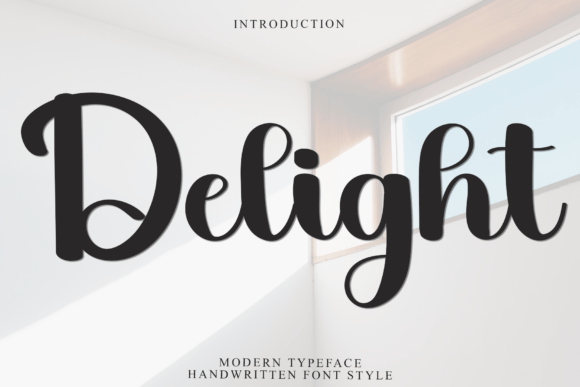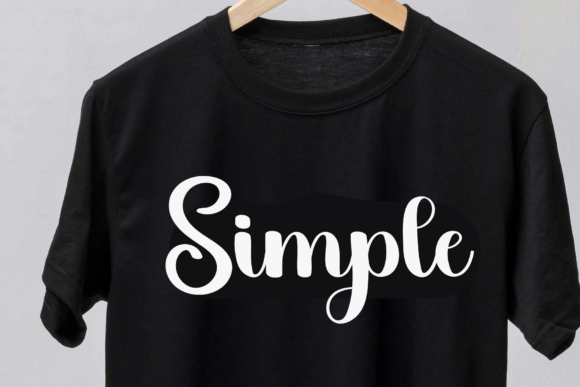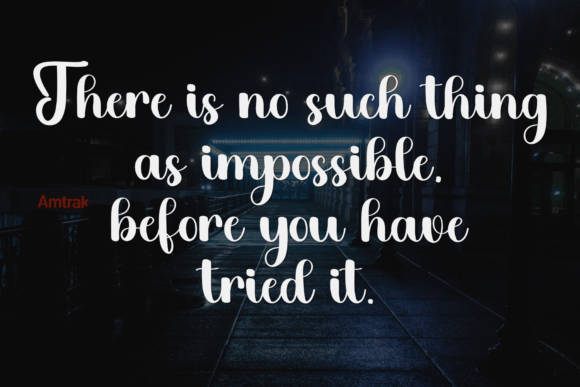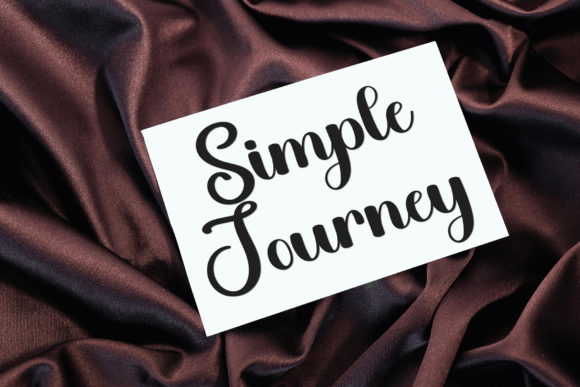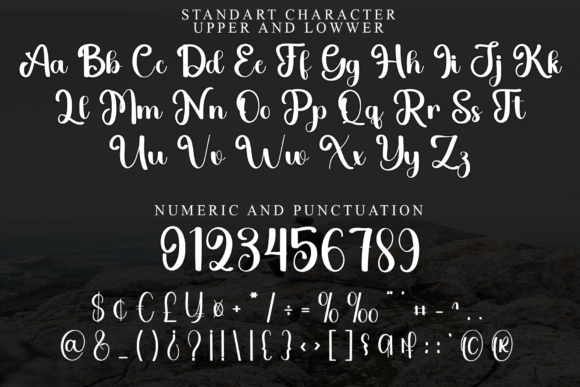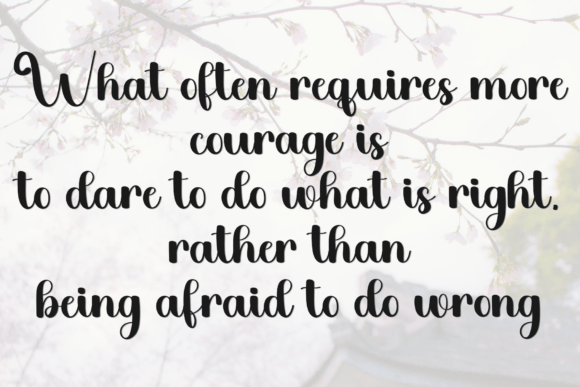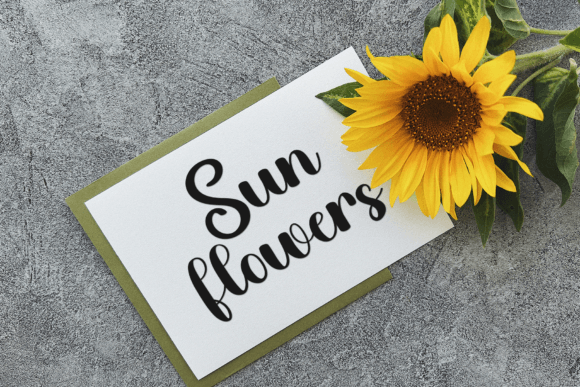
Have you ever sat at your desk, staring blankly at a blank page, searching for the perfect font to bring your design to life? The blank page can be intimidating, but the right font can make all the difference. For me, it’s that moment when the words start flowing, and the design begins to take shape – and that’s exactly what the Delight Font is designed to do.
Delight Font is a stunning, elegant script font that’s perfect for adding a handwritten touch to your designs. Whether you’re creating wedding invitations, thank you cards, or business cards, this font is sure to delight your clients and leave a lasting impression. With its versatility and timeless charm, the Delight Font is a valuable addition to any designer’s toolkit.
Delight Font Key Features
- Font Size: 20,000+ glyphs, ensuring comprehensive language support
- Unique Characteristics: Delight Font features a modern, elegant design with a focus on readability and versatility, making it suitable for a wide range of applications, from body text to display headings.
Delight Font Review
First off, I’d say that Delight Font has a certain ✨ charm to it. The delicate, handwritten feel of the font is perfect for any project that needs a touch of whimsy. The font is great for use in creative industries like advertising, fashion, and entertainment, where a bit of flair can go a long way.
The font also works well for use in social media graphics, where the cursive feel can help to add a personal touch to your posts. Plus, the font is highly customizable, making it easy to adjust the style to fit your needs.
- ⚠️ Delight Font may not be the best choice for use in formal or professional settings, where a more traditional font might be more suitable.
- ⚠️ The font may be difficult to read in certain situations, such as at small font sizes or in low-light conditions.
Overall, I’d say that Delight Font is a solid choice for any project that needs a bit of personality. While it may not be the best choice for every situation, it’s definitely worth considering for projects that need a touch of whimsy and flair.
- Designing wedding invitations and stationery.
- Creating social media graphics and advertisements.
- Designing branding materials and logos.
Alternatives to Delight Font
Great Vibes is a modern script font perfect for creating a friendly and approachable atmosphere. It’s ideal for use in logos, branding, and advertising materials where a casual and relaxed tone is desired.
Great Vibes is similar to Delight Font in its cursive style, but it has a more playful and whimsical feel. It’s a great choice for designers who want to add a touch of personality to their projects.
Alex Brush is a elegant script font that exudes sophistication and refinement. It’s perfect for use in high-end branding, packaging, and editorial design where a sense of luxury and sophistication is desired.
Alex Brush is more formal and elegant compared to Delight Font, making it a great choice for designers who want to create a sense of luxury and sophistication in their projects.
Dancing Script is a lively and energetic script font that’s perfect for use in creative and playful projects. It’s ideal for use in advertising, social media, and entertainment design where a sense of fun and playfulness is desired.